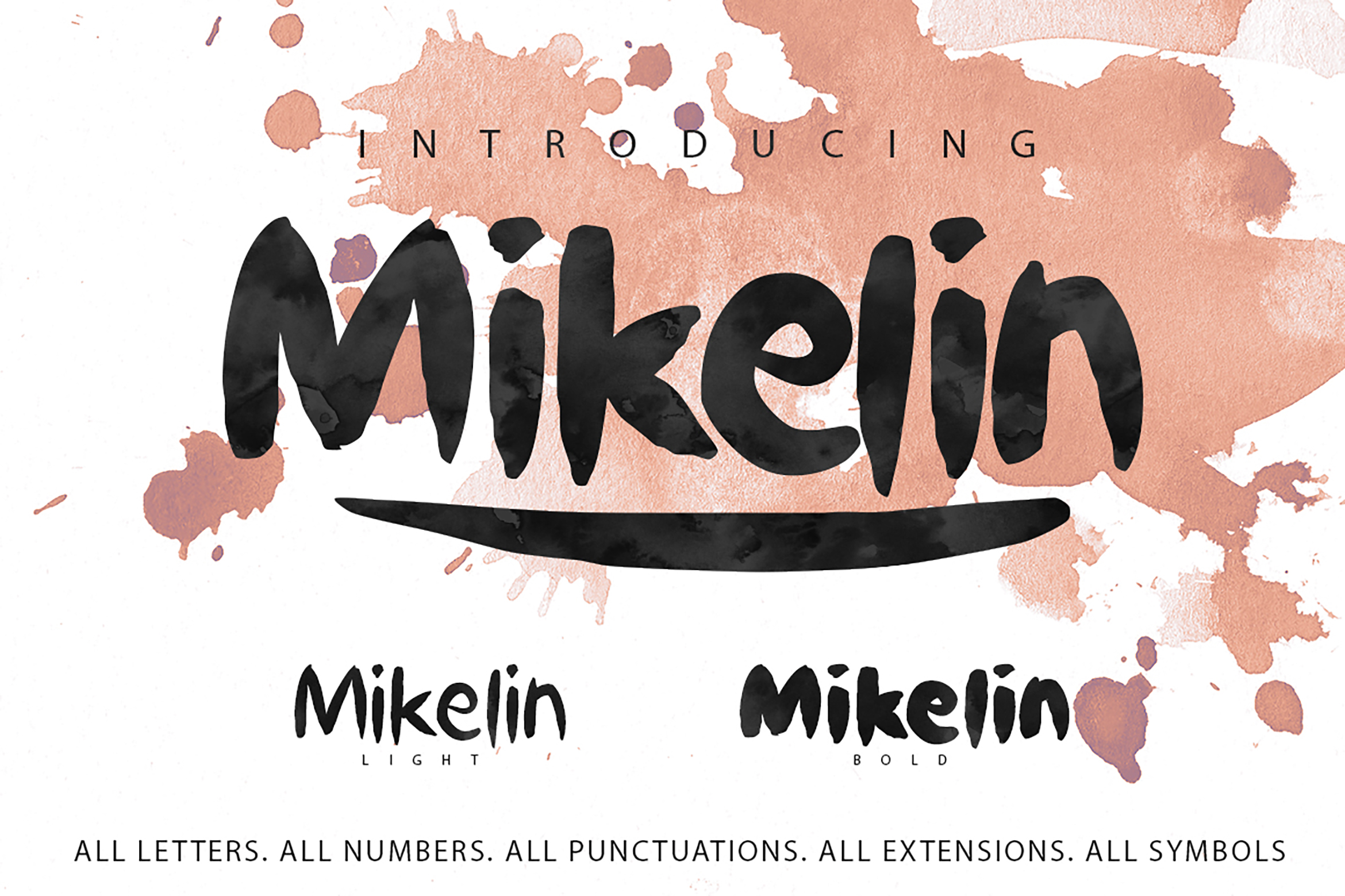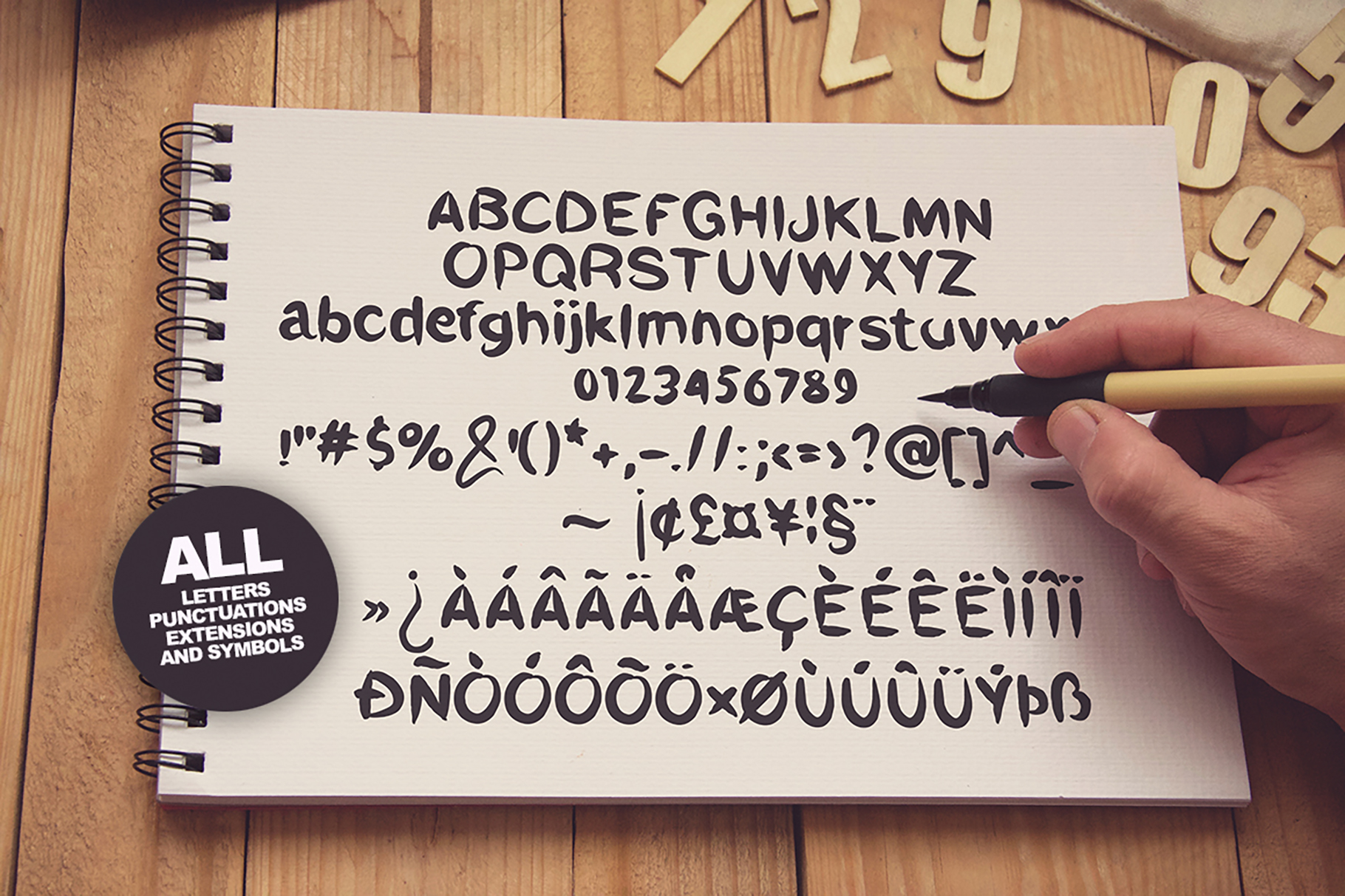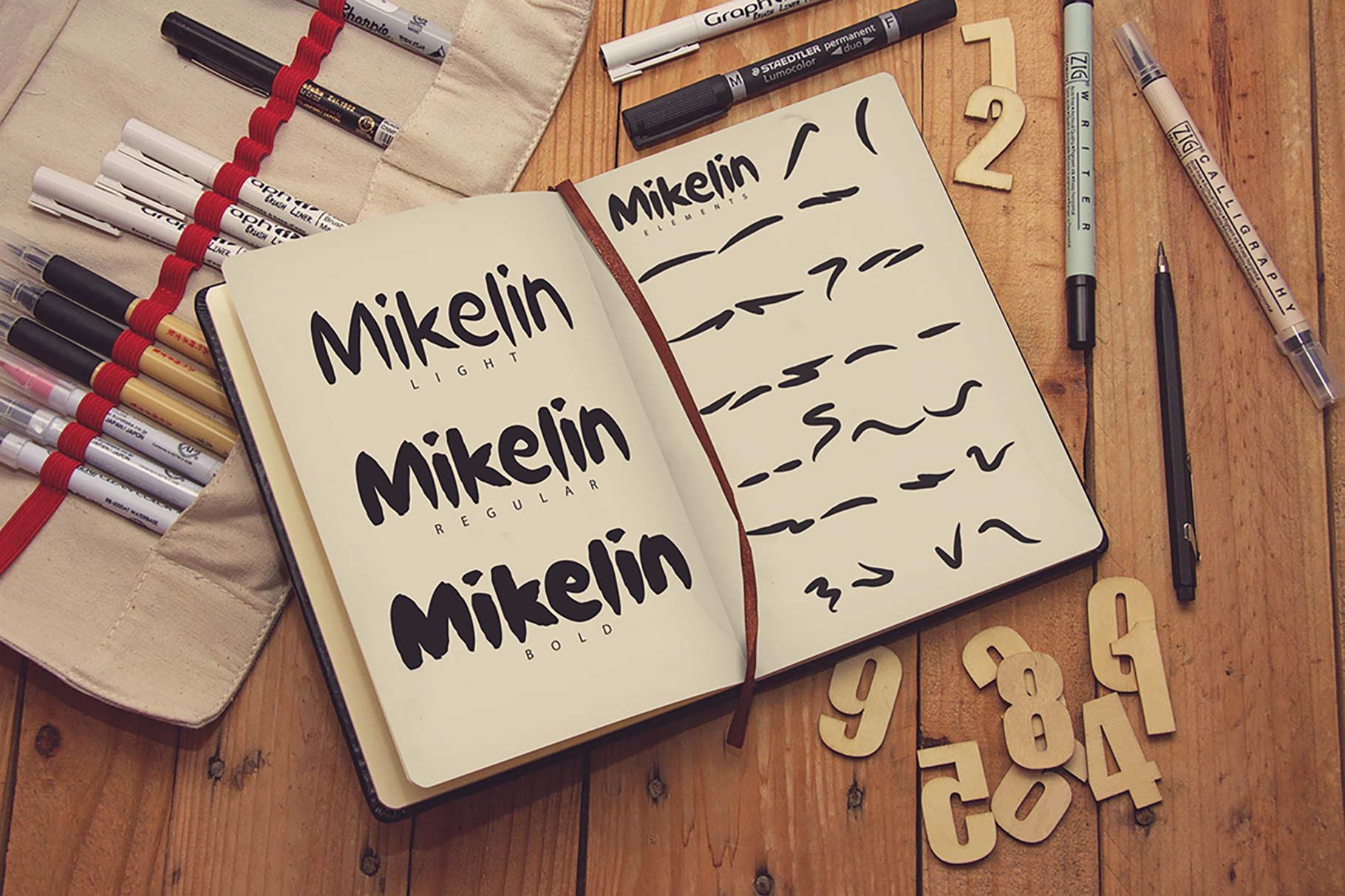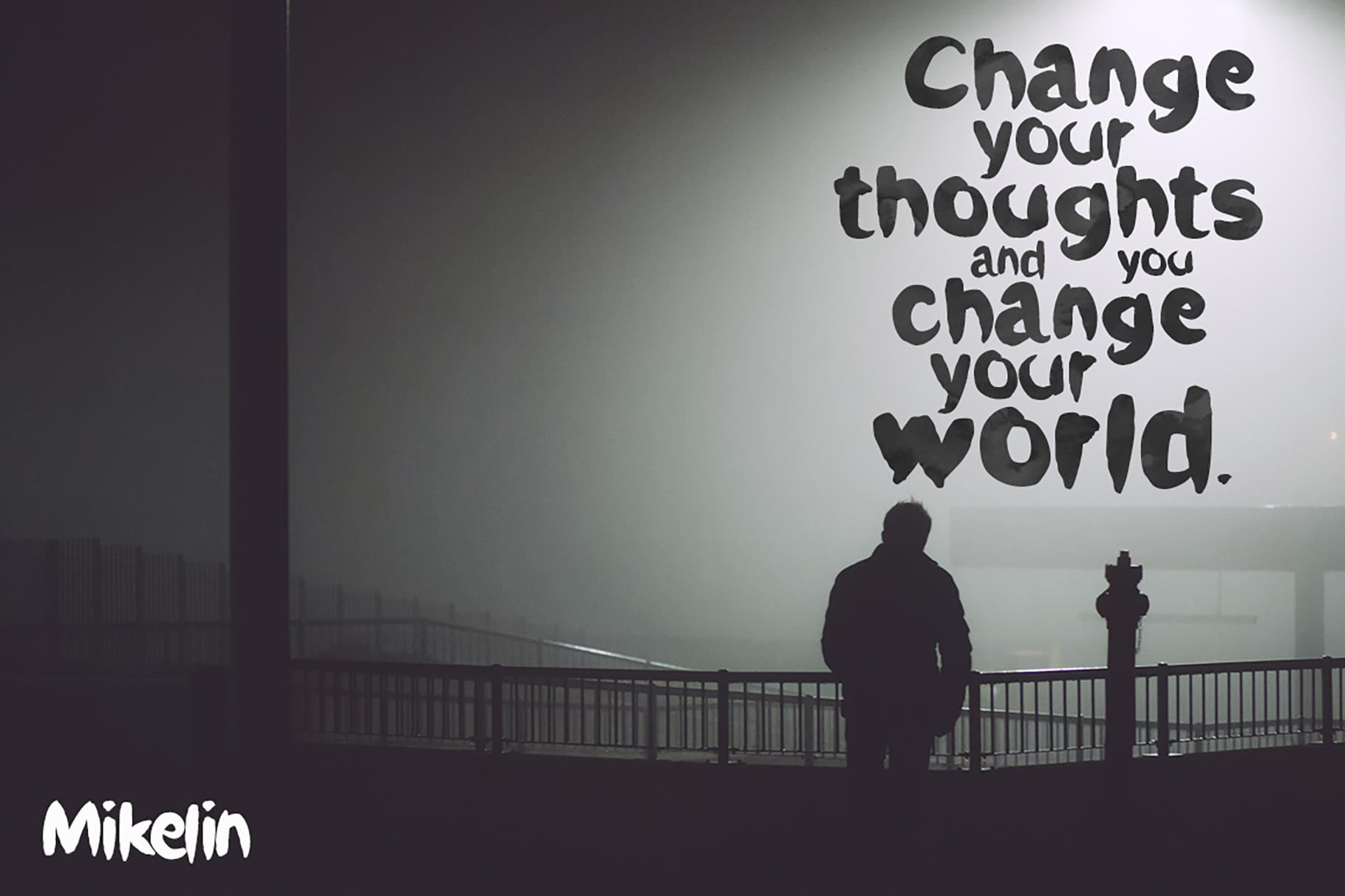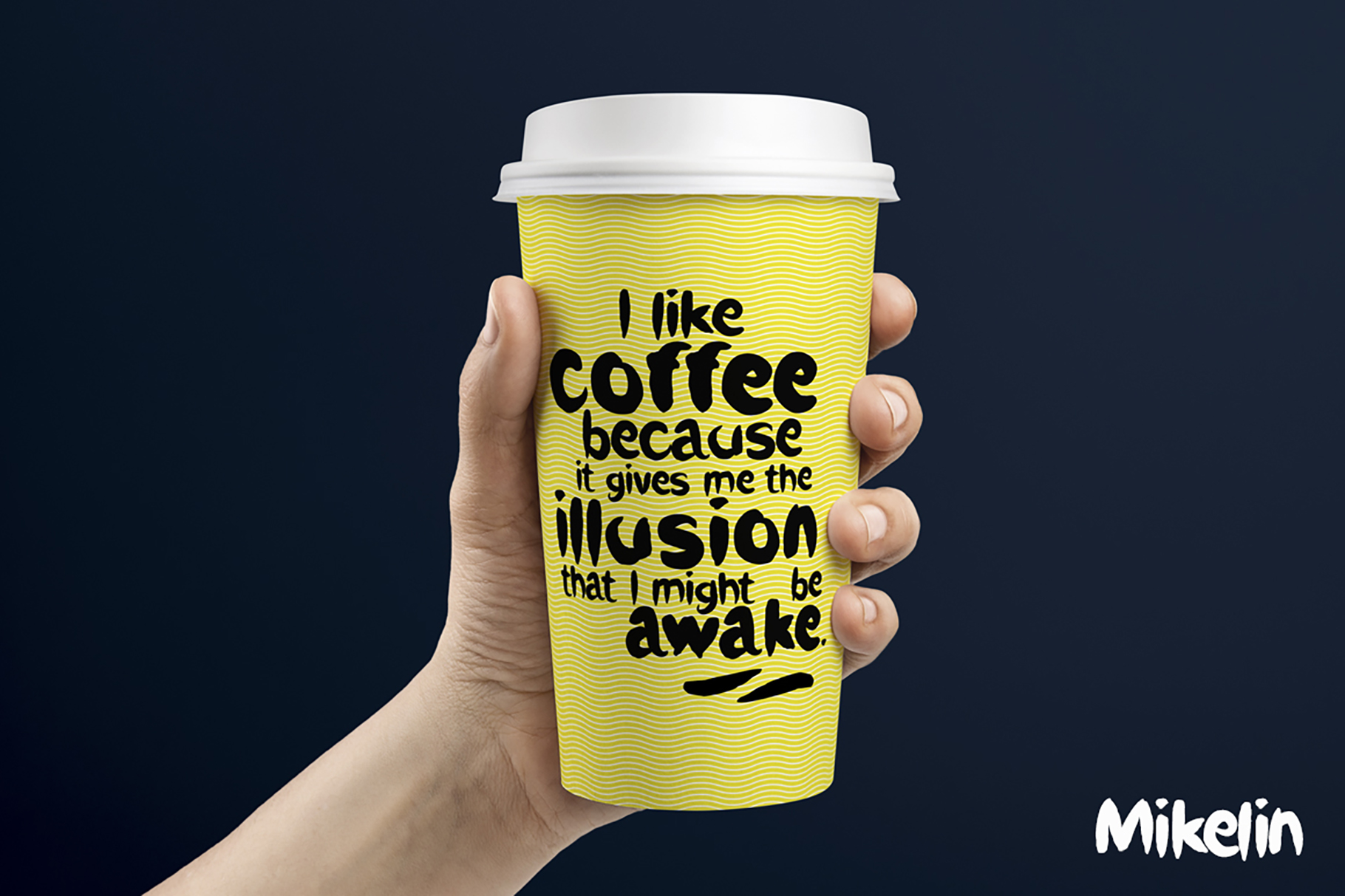
MIKELIN is a small brush type font family that comes in 4 variations, include:
• All Punctuations
• All Symbols
• All Letters
• All Numbers
• All Extensions